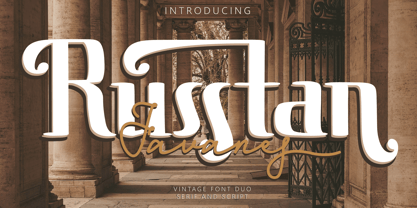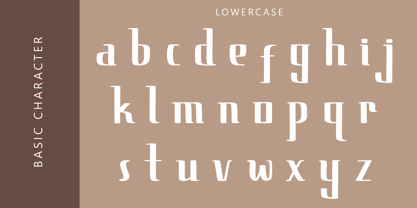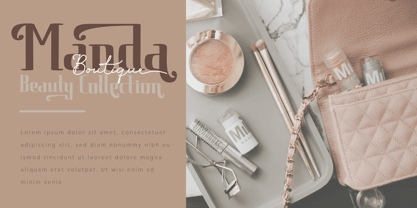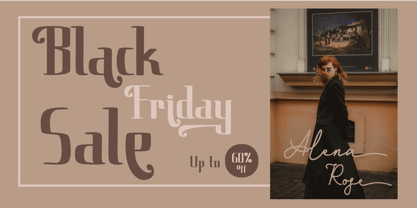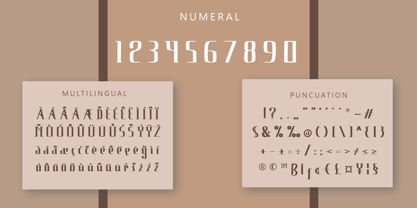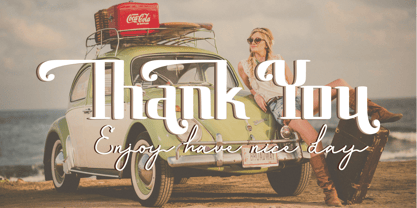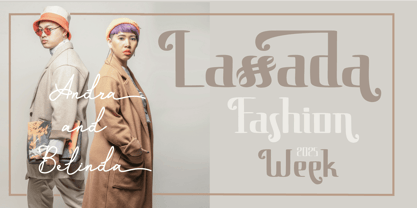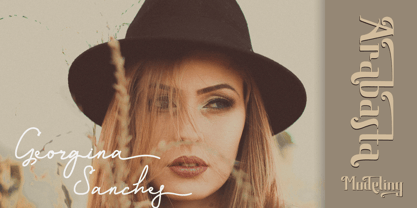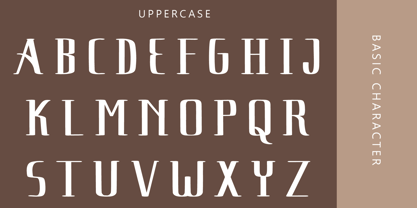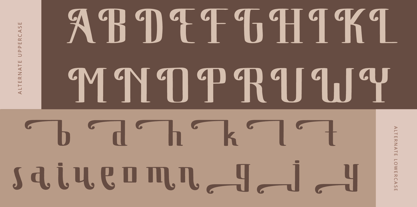
Russtan Javenes
by Javatypestd
The Russtan Javenes Font Family was designed by Tio Yulianto and published by Javatypestd. Russtan Javenes contains 2 styles and family package options. More about this family
Immerse yourself in the delightful charm of Rusttan javanes Font, this font duo serif and script. a font with an ageless serif style magically intertwined with a contemporary edge. The ripened sophistication of the vintage silhouette marries effortlessly with the crisp modern flair, creating an elegant typographic experience. Find the perfect expression for a diverse array of needs, whether it’s turning the fabric of your clothing line into a canvas of chic statements or lending a signature style to your everyday essentials. With Rusttan javanes font, every word becomes a testament to timeless elegance and modern sophistication.
Designers: Tio Yulianto
Foundry: Javatypestd